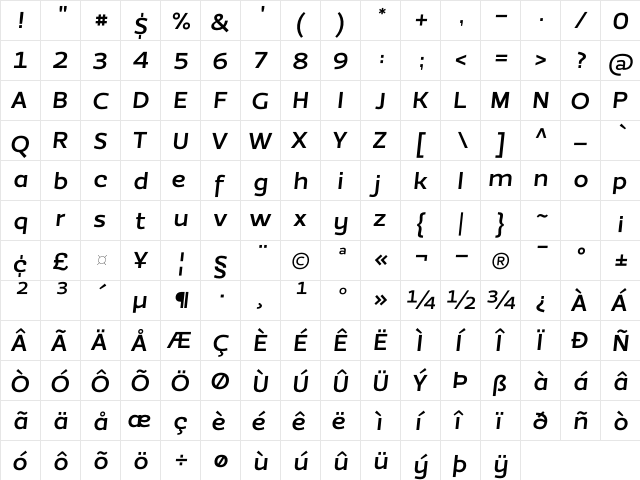
EzzoBoldItalic Regular
| Foundry | Dino dos Santos _DSType |
Design Context for EzzoBoldItalic Typeface
EzzoBoldItalic offers clean, dependable letterforms without strong stylistic allegiance, making it a practical choice for designers who need flexibility. The slanted form adds forward momentum and visual energy. Its bold stroke weight gives it real presence on the page.
Pro Tip: Try EzzoBoldItalic for annotation and caption copy alongside an upright companion — the contrast in angle creates a dynamic but ordered typographic system.